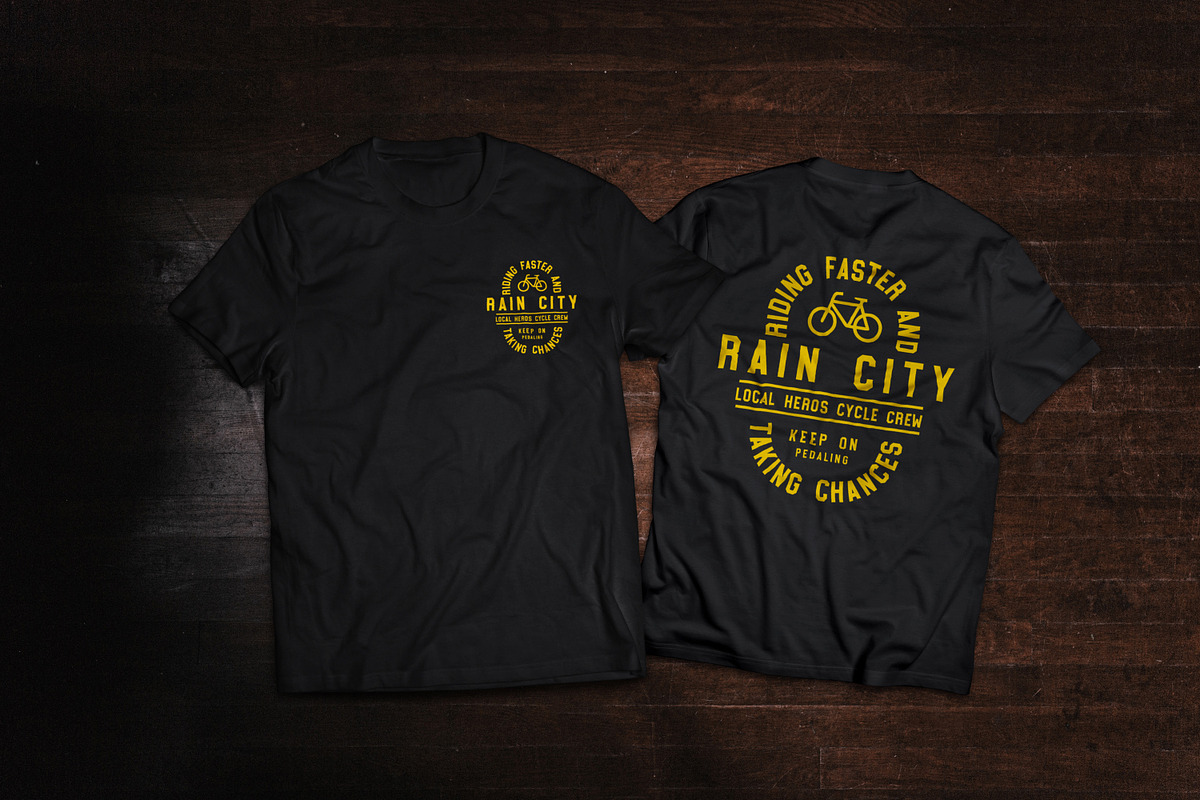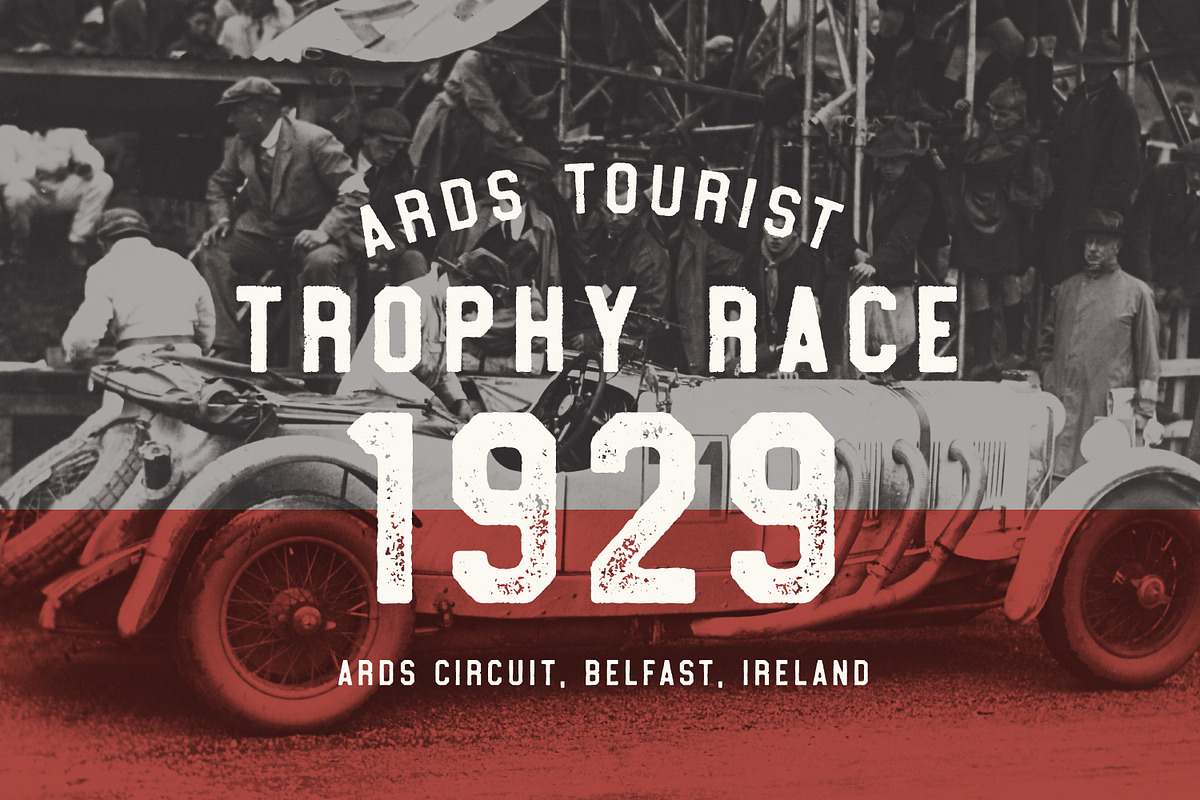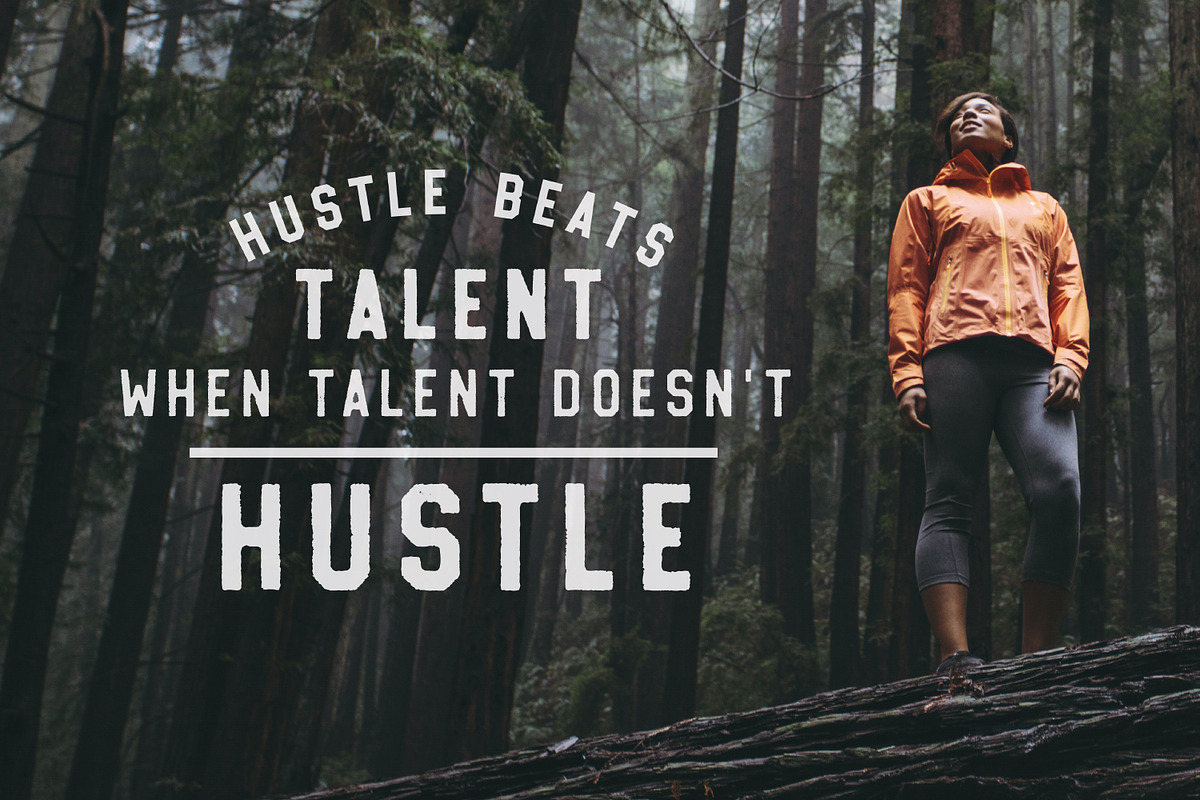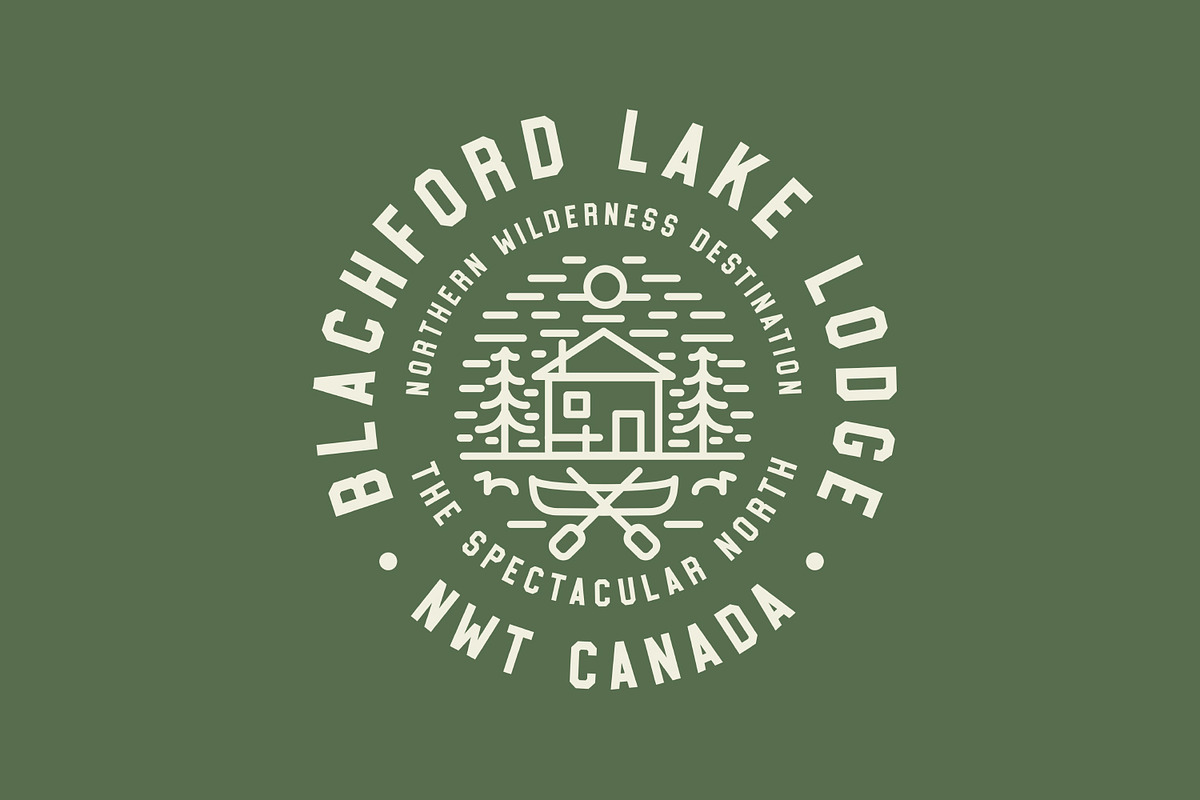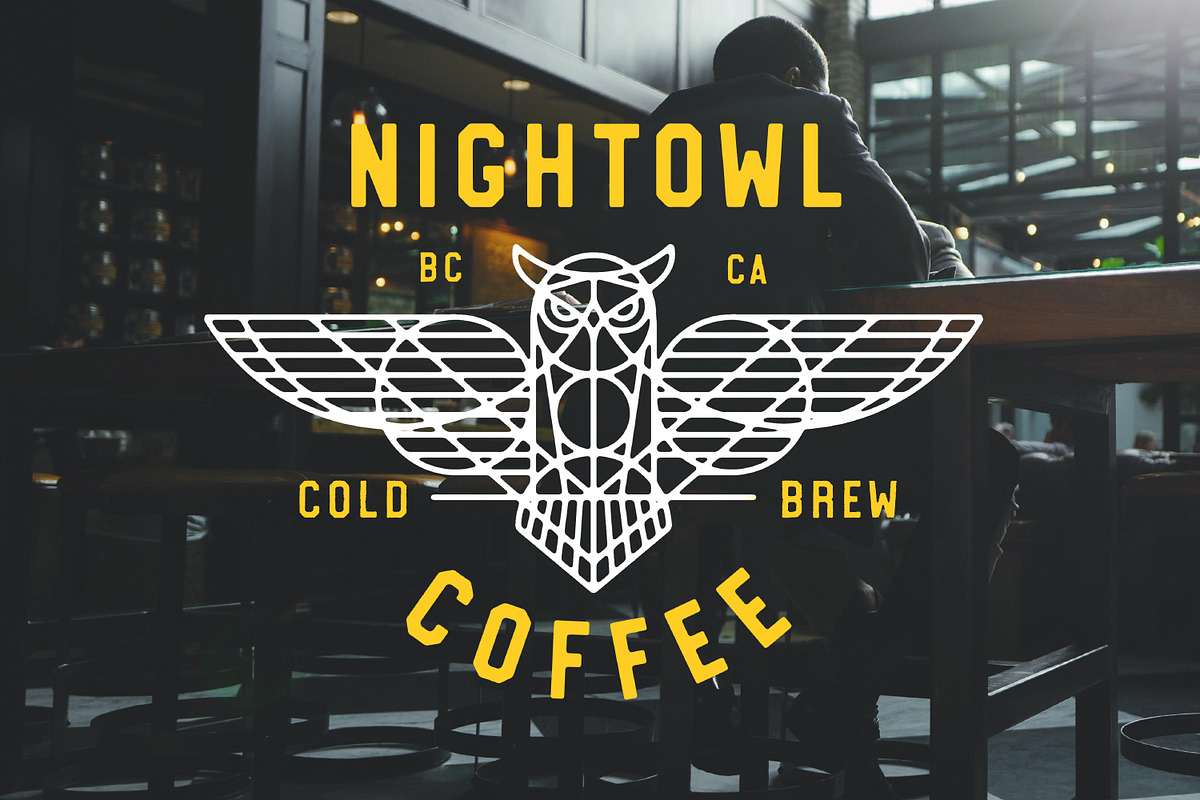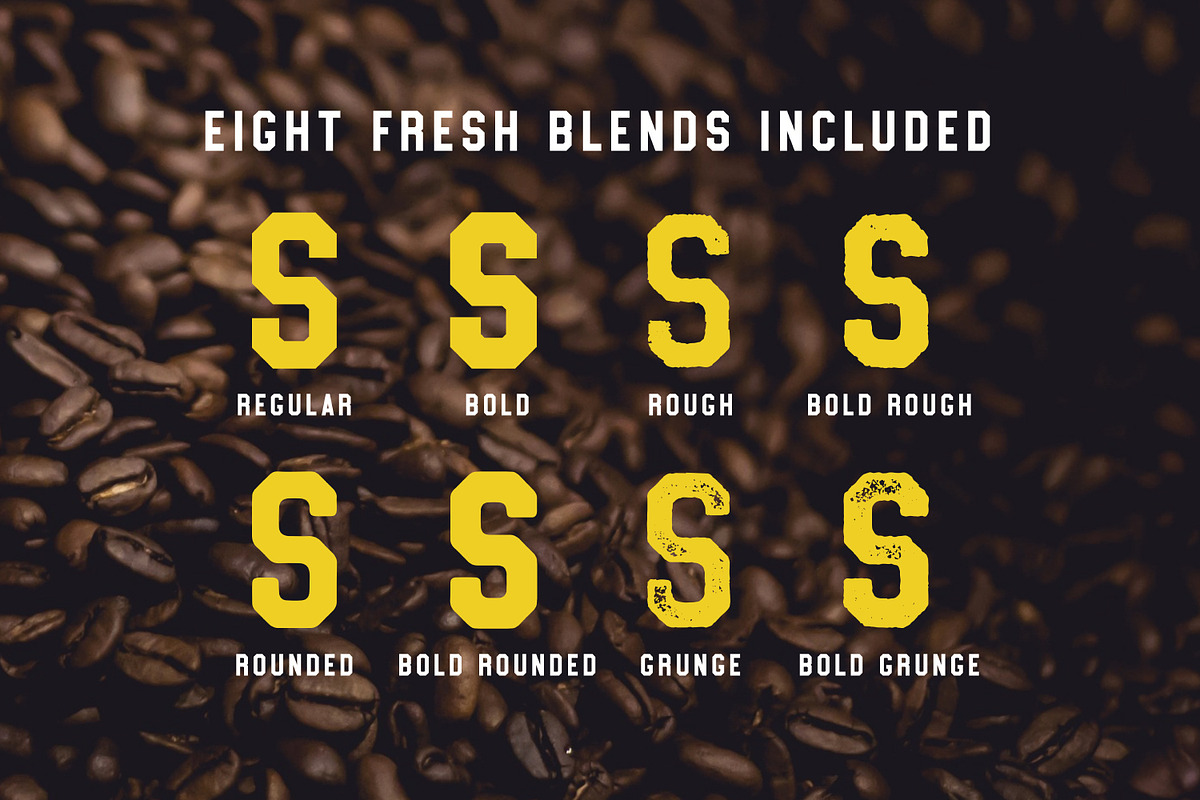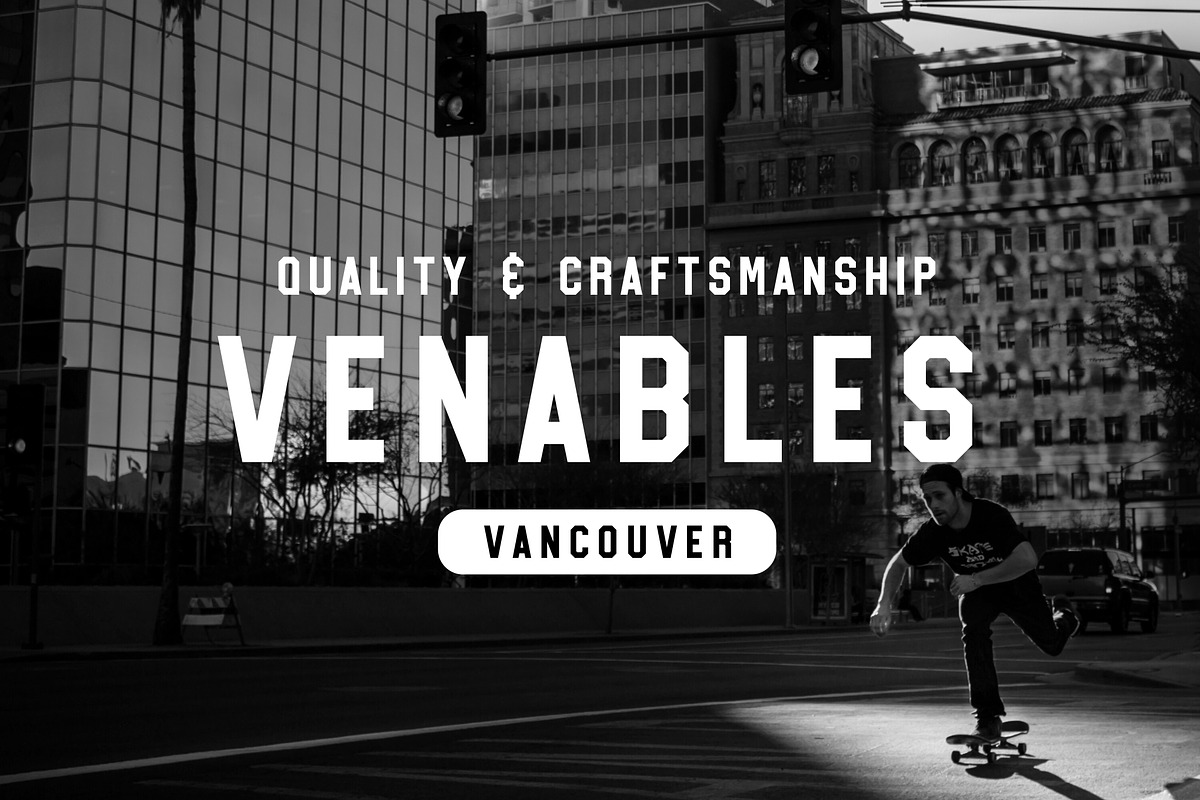
Treadstone - 8 Font Family
Treadstone - 8 Font Family by Greg Nicholls is a font selected for branding, posters, packaging, typography.
- This font family includes versions with rounded edges, rough edges and grunge effects, each of which has its own character and charm.
Why Treadstone - 8 Font Family is worth a look
Treadstone - 8 Font Family by Greg Nicholls fits naturally into Branding, posters, packaging, typography.